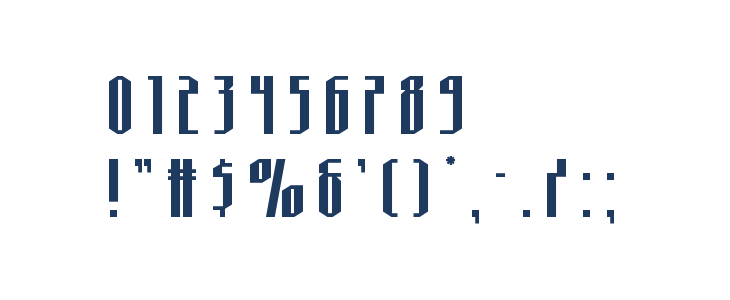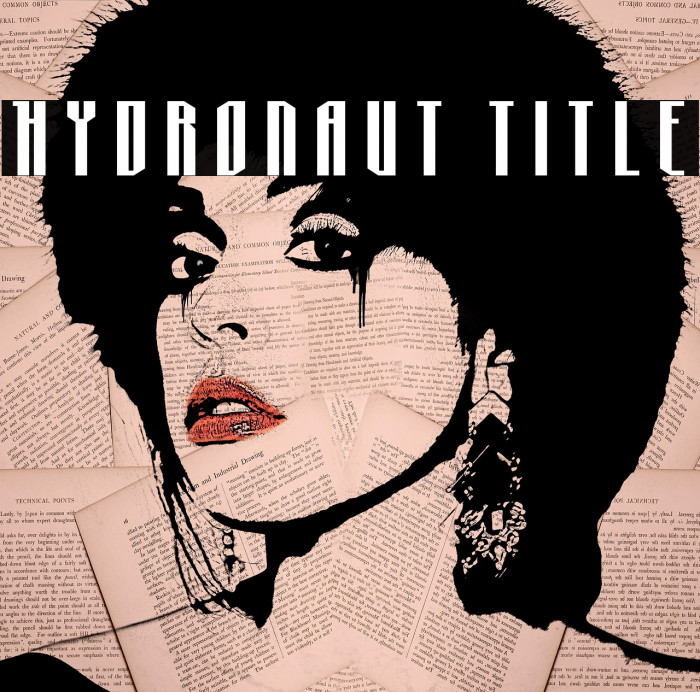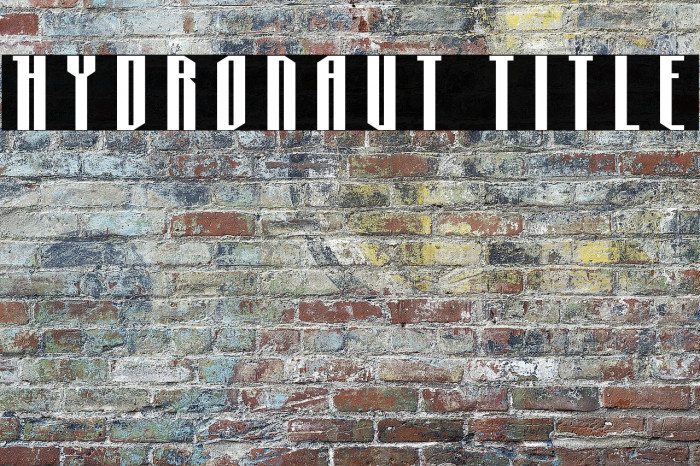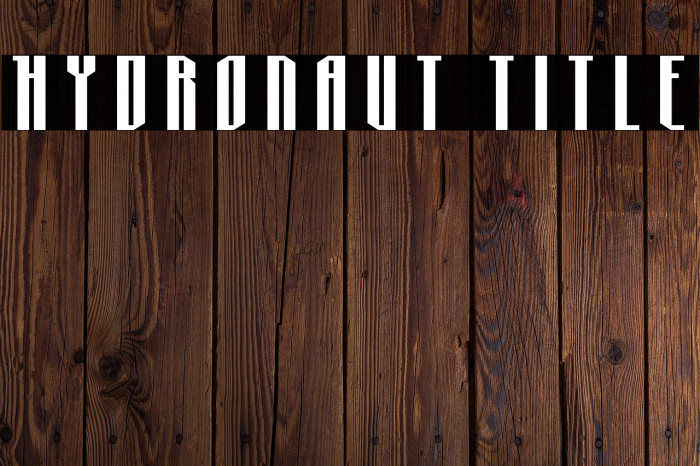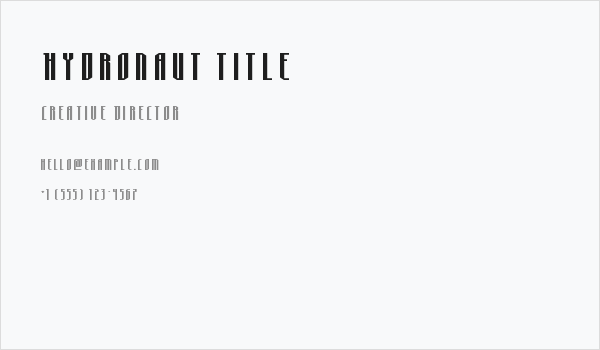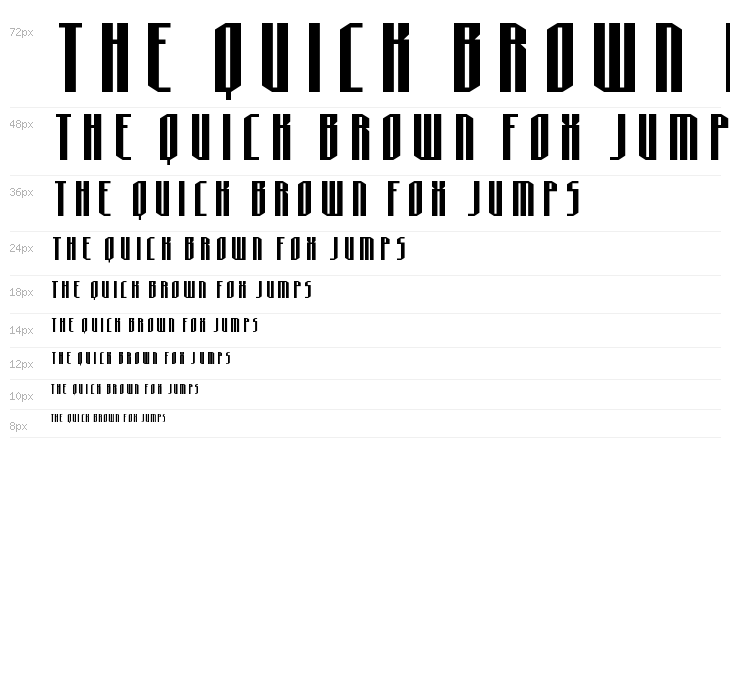
Hydronaut Title Font
Hydronaut Title Description
This font features a bold, geometric design with sharp angles and a futuristic aesthetic. The characters are uniformly structured, with a consistent height and width that gives a sense of stability and strength. The uppercase letters are particularly striking, with a blocky appearance that commands attention. The lowercase letters maintain the same geometric style, ensuring cohesion across different text cases. Numbers and special characters are designed with the same attention to detail, making them easily recognizable and visually appealing. The overall style is modern and assertive, suitable for projects that require a strong visual impact.
| Proposed Projects | Ideal for sci-fi themed projects, technology branding, video game titles, and futuristic posters. |